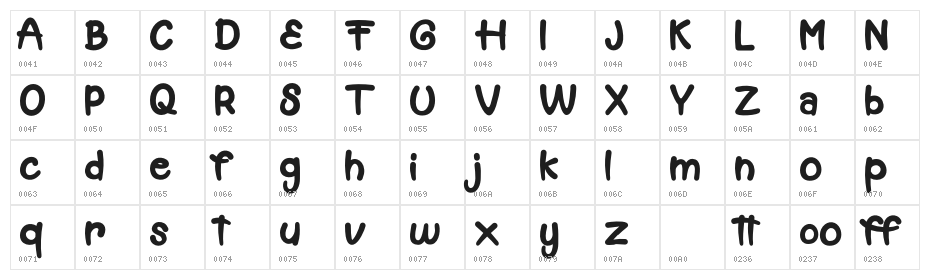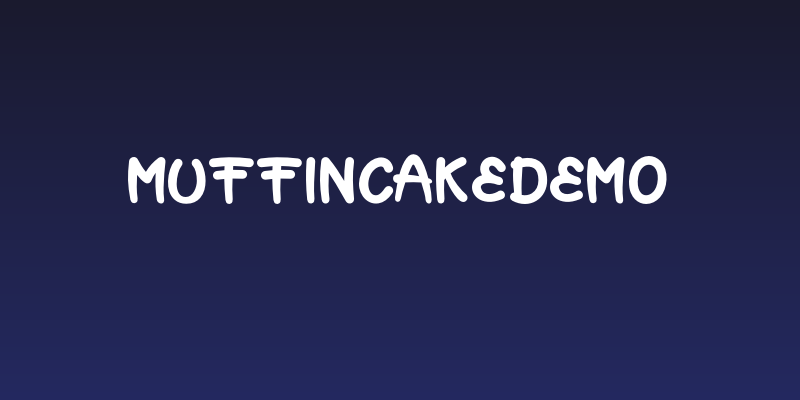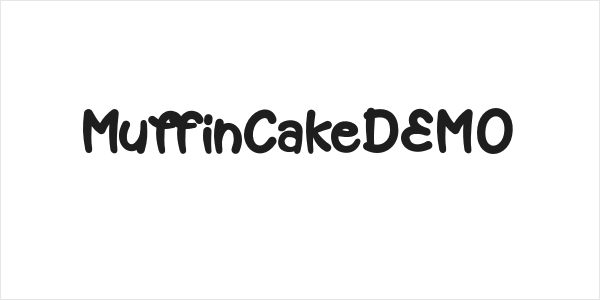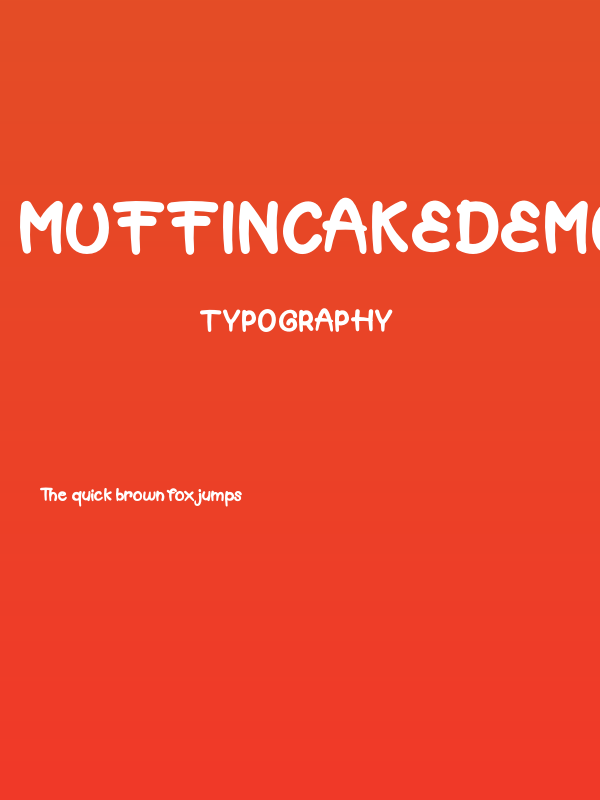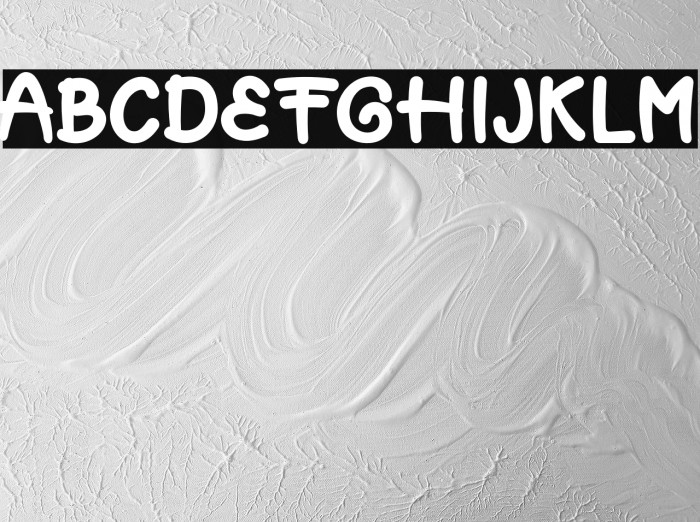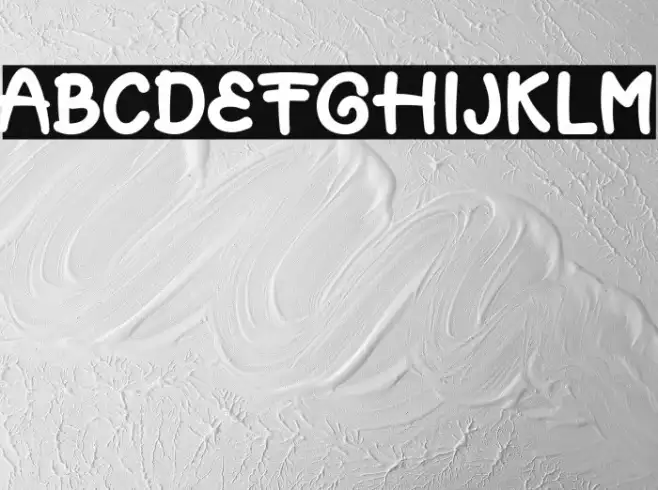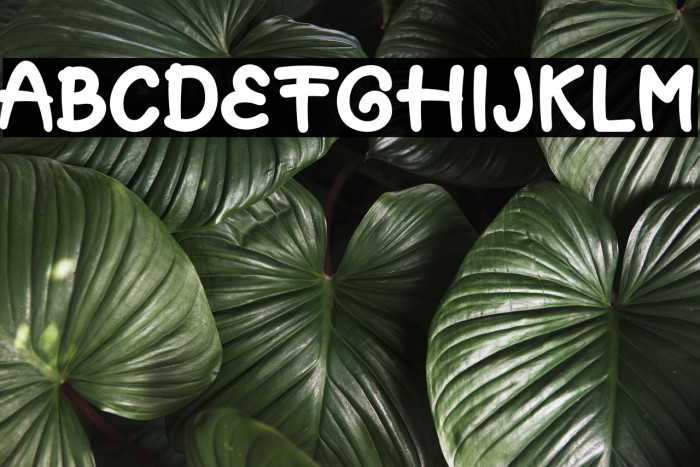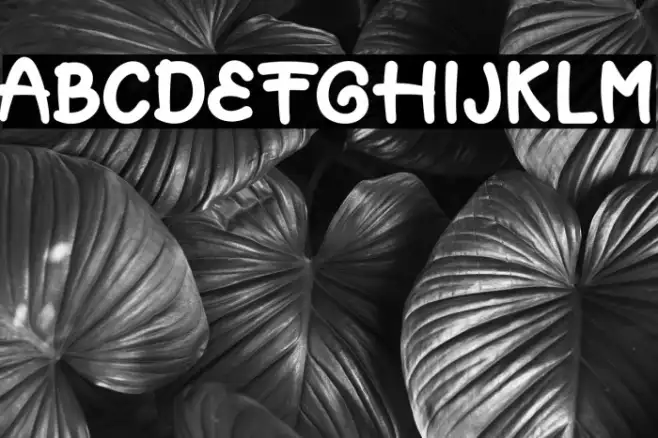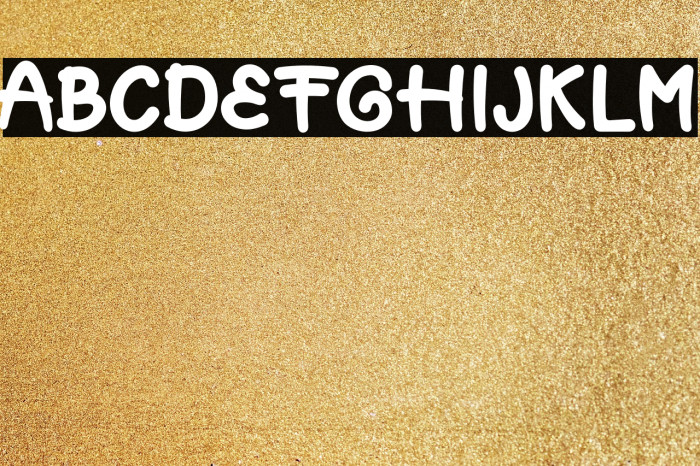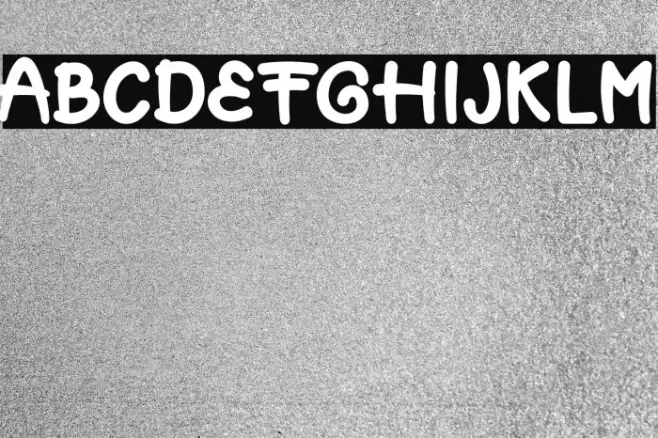
MuffinCakeDEMO Font
MuffinCakeDEMO Description
This playful and whimsical font features rounded, bold characters with a hand-drawn aesthetic. The uppercase and lowercase letters are consistent in their bubbly appearance, giving off a friendly and approachable vibe. The strokes are thick and uniform, contributing to a cohesive look across all characters. The font's design is reminiscent of casual handwriting, making it ideal for projects that require a personal touch. Its unique style is further emphasized by the exaggerated curves and loops, particularly in letters like 'g', 'j', and 'y'. The font lacks traditional serifs, adding to its modern and informal feel.
| Proposed Projects | Ideal for children's books, playful branding, greeting cards, and casual invitations. |